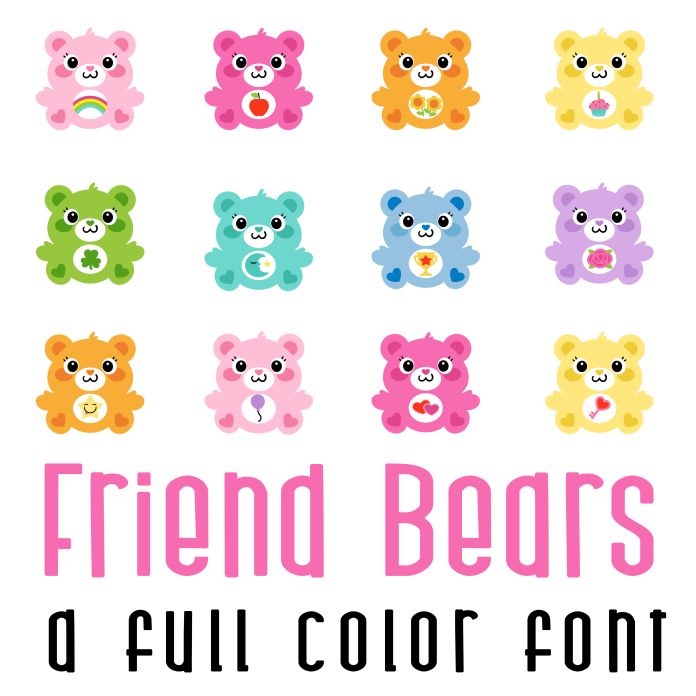
This beautiful full color font features 26 adorable bears with fun tummy designs. Perfect for cards, crafts, gifts, decor, scrapbook pages, planner stickers, and more!